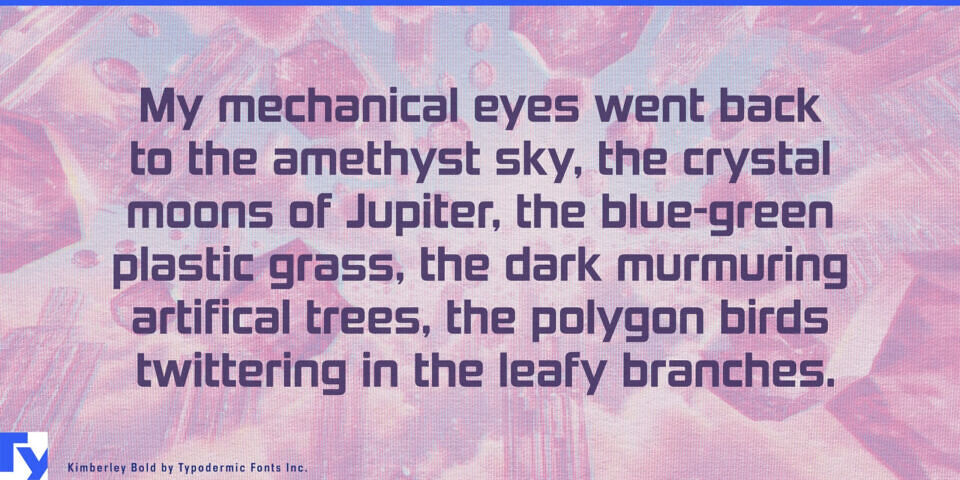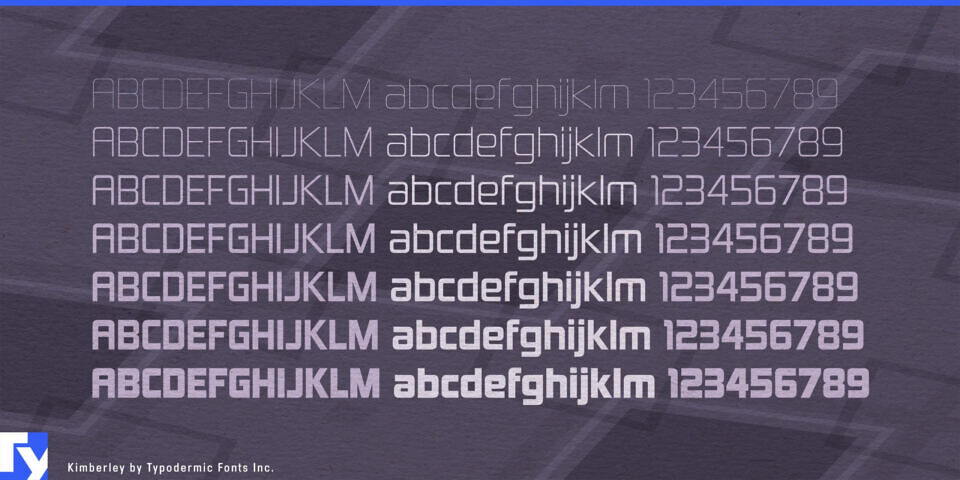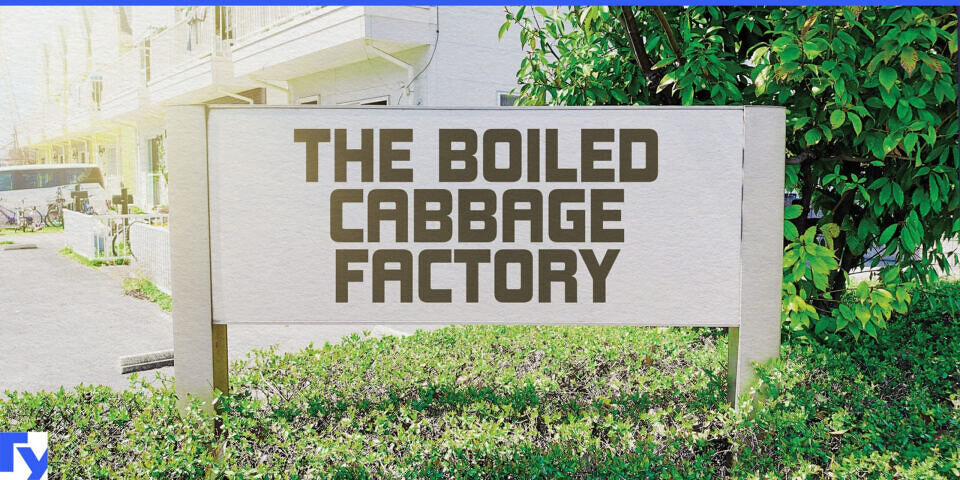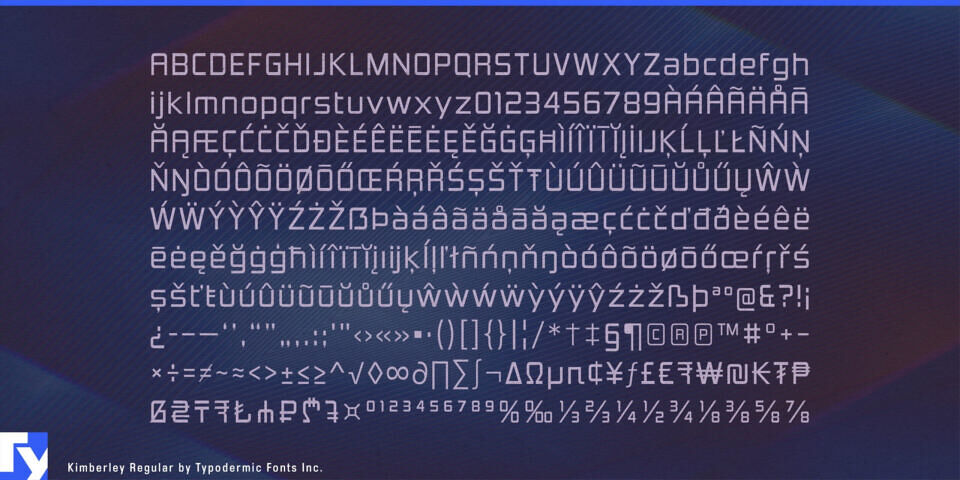
Kimberley Font
Kimberley is a squared, precisely drawn sans serif designed for clarity, flexibility, and global reach. Its seven weights with italics range from Hairline to Black, maintaining a consistent rhythm that adapts from tight packaging layouts to large-format signage. Sharp horizontals meet softened corners, balancing technical precision with a touch of warmth. The lighter styles read cleanly in text, while the heavier ones project authority in titles and branding.